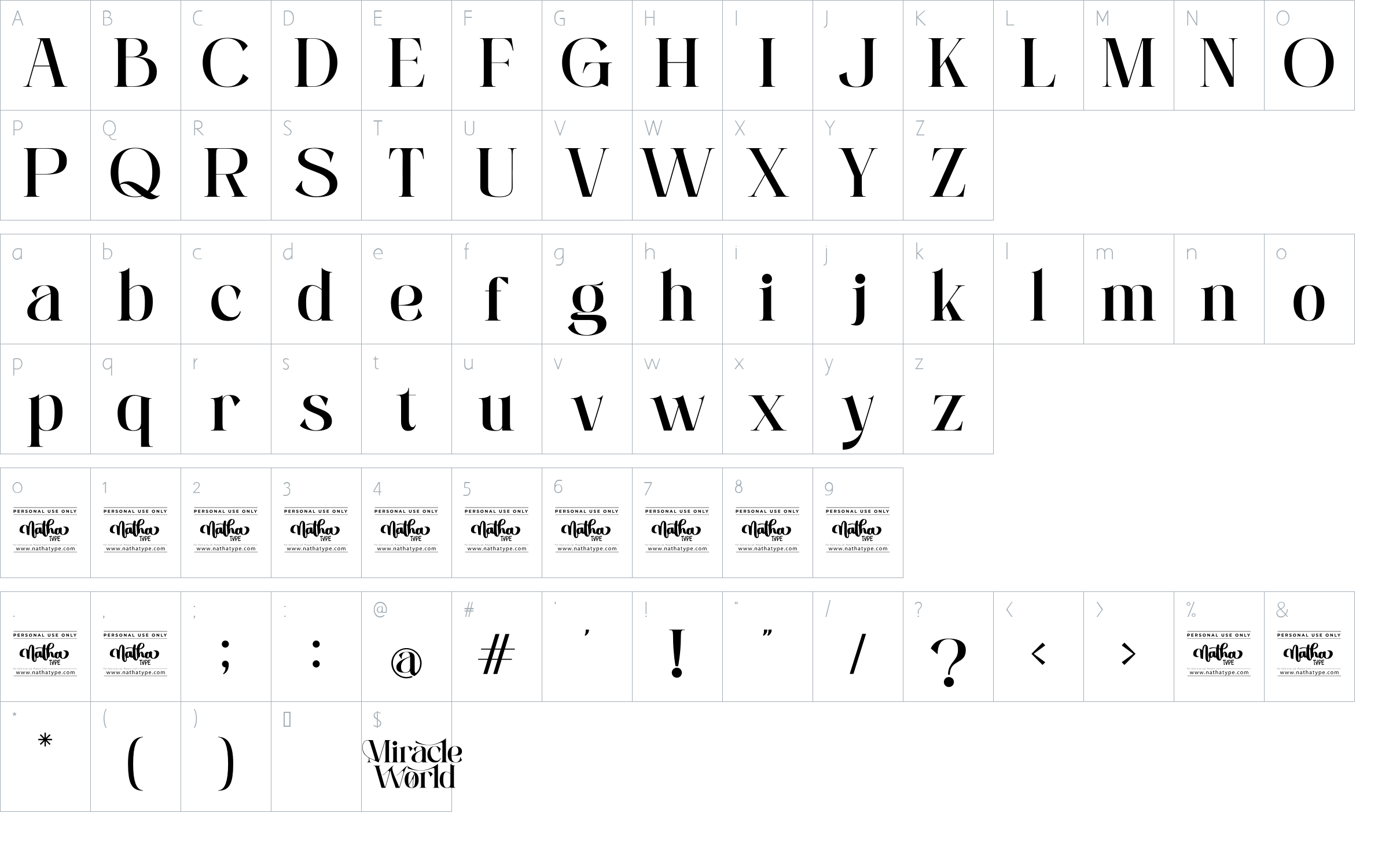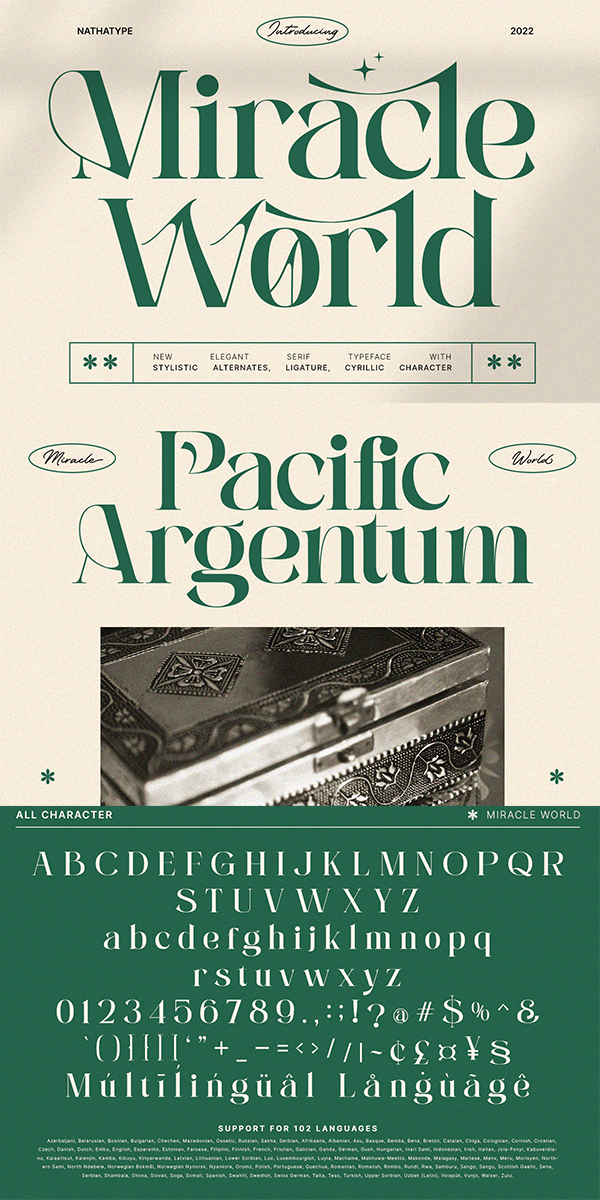
Miracle World Font
About Miracle World
Miracle World is an elegant serif font to level up your design into something miracle. It can never go wrong to be applied in any purposes. The weight of the font was designed to bring strength to any title/header. On the other hand, the curves of the characters convey a sense of elegance. It is also has fascinating features that helps you maximize your design.
It can be used for many design projects, such as poster, logo, book cover, branding, heading, printed product, merchandise, quotes, social media campaign, etc. Learn more about how to use it by seeing the font preview. Get more inspiration about how to use it by seeing the font preview.